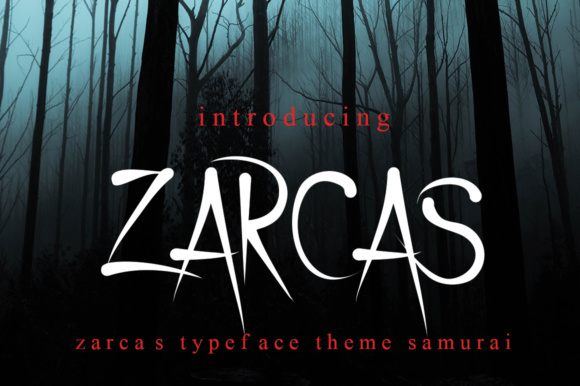
Zarcas Font
At once dark and alluring, Zarcas is a wickedly charming display font that'll leave your viewers spellbound.
Each letterform within this hypnotic horror-themed font seems to writhe and coil, almost as if conjured from the deepest, darkest corners of the human psyche. Long, sharp strokes ooze with supernatural intent, imbuing your text with an aura of ethereal elegance.
Originally designed by the masterful jehansyah251, Zarcas is more than just a font. It's an otherworldly experience that takes the ordinary and transforms it into the extraordinary. Whether you're crafting Halloween invitations, spooky social media posts, or chilling movie posters, Zarcas will add a touch of thrilling terror to your design.